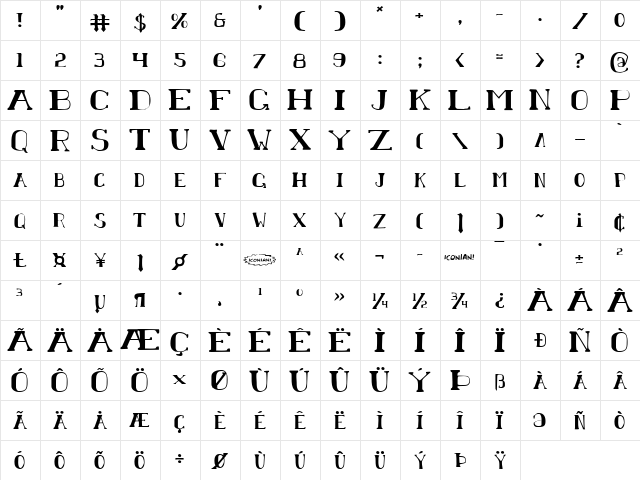
Chardin Doihle Regular
Design Context for Chardin Doihle Typeface
Chardin Doihle takes a measured approach to typography — its balanced proportions and neutral character make it a reliable workhorse for both digital and print work.